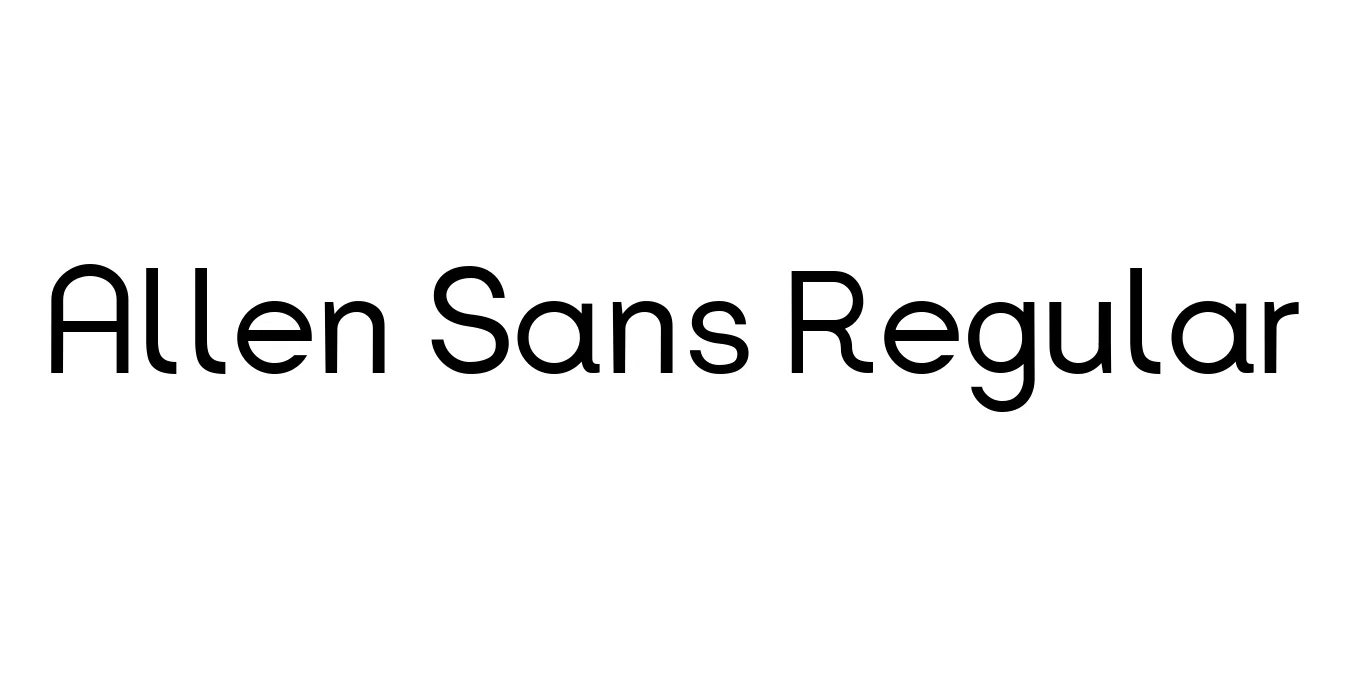
Allen Sans Regular
Designed by Design Graphic Studio
Allen Sans Regular is a contemporary sans-serif typeface designed with a focus on geometric precision and functional clarity. Its clean lines and balanced proportions make it a versatile choice for digital and print media alike, ensuring high legibility even at smaller point sizes through its carefully calculated kerning and open apertures.
The font's aesthetic is rooted in modernist principles, blending minimalist architecture with a user-friendly appeal. Whether utilized for corporate branding, mobile interfaces, or high-end editorial layouts, Allen Sans Regular provides a sophisticated and professional tone that adapts seamlessly to diverse design requirements while maintaining a timeless visual identity.
Allen Sans Regular Best Uses
Ideal for creating strong, minimalist logo designs and corporate identity systems.
Highly effective for clean user interfaces, navigation menus, and body text.
Excellent for magazine layouts, book covers, and structured report formatting.
Perfect for high-impact social media graphics and minimalist advertisement overlays.